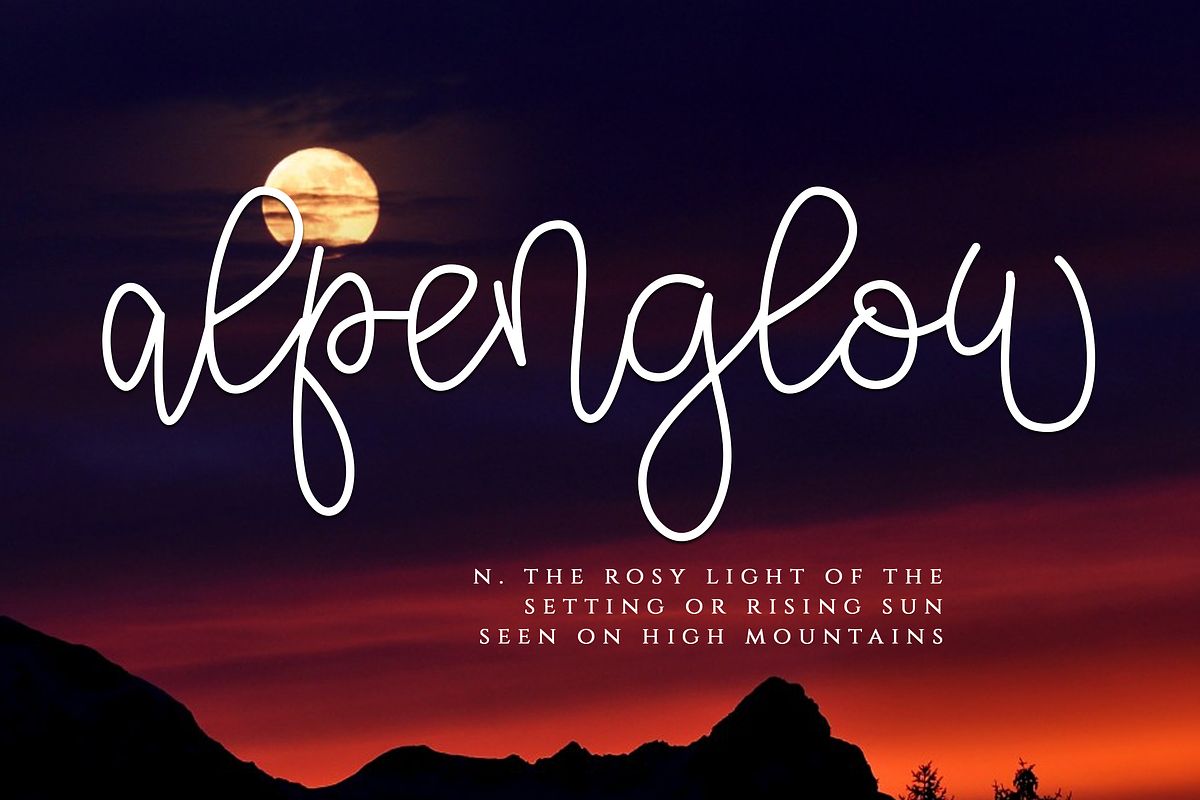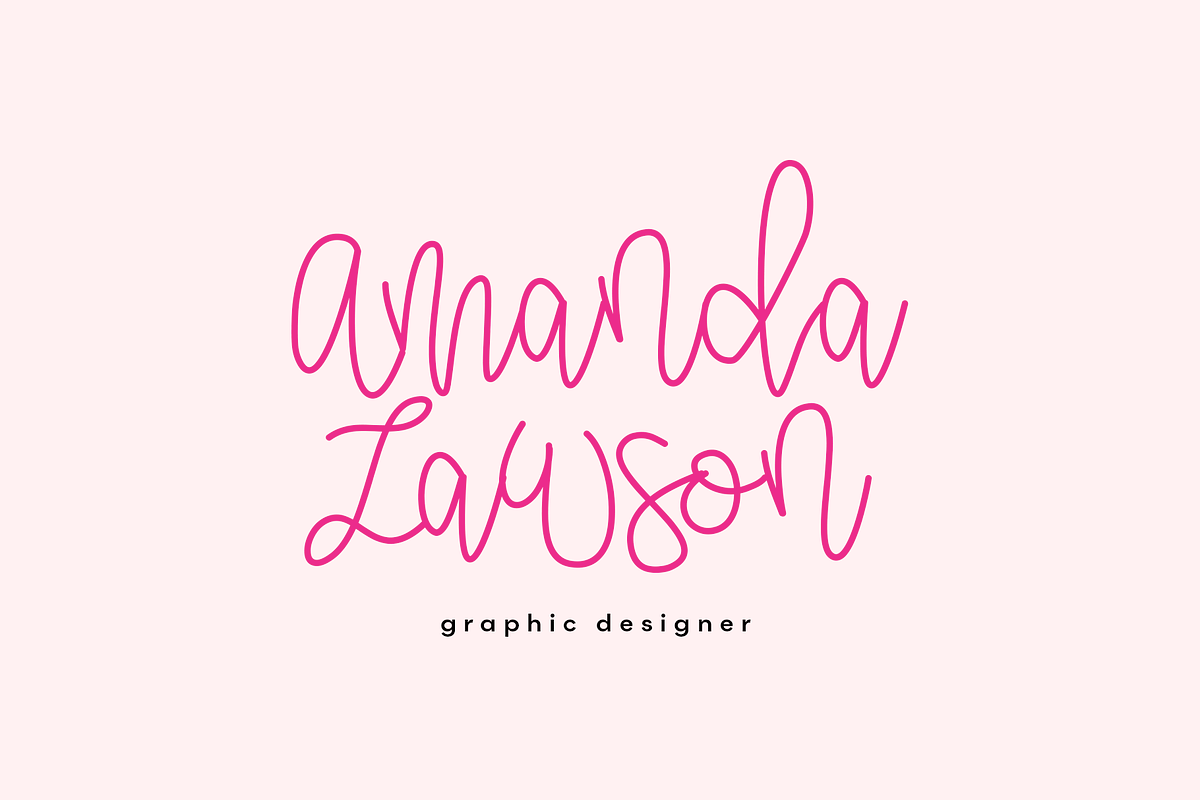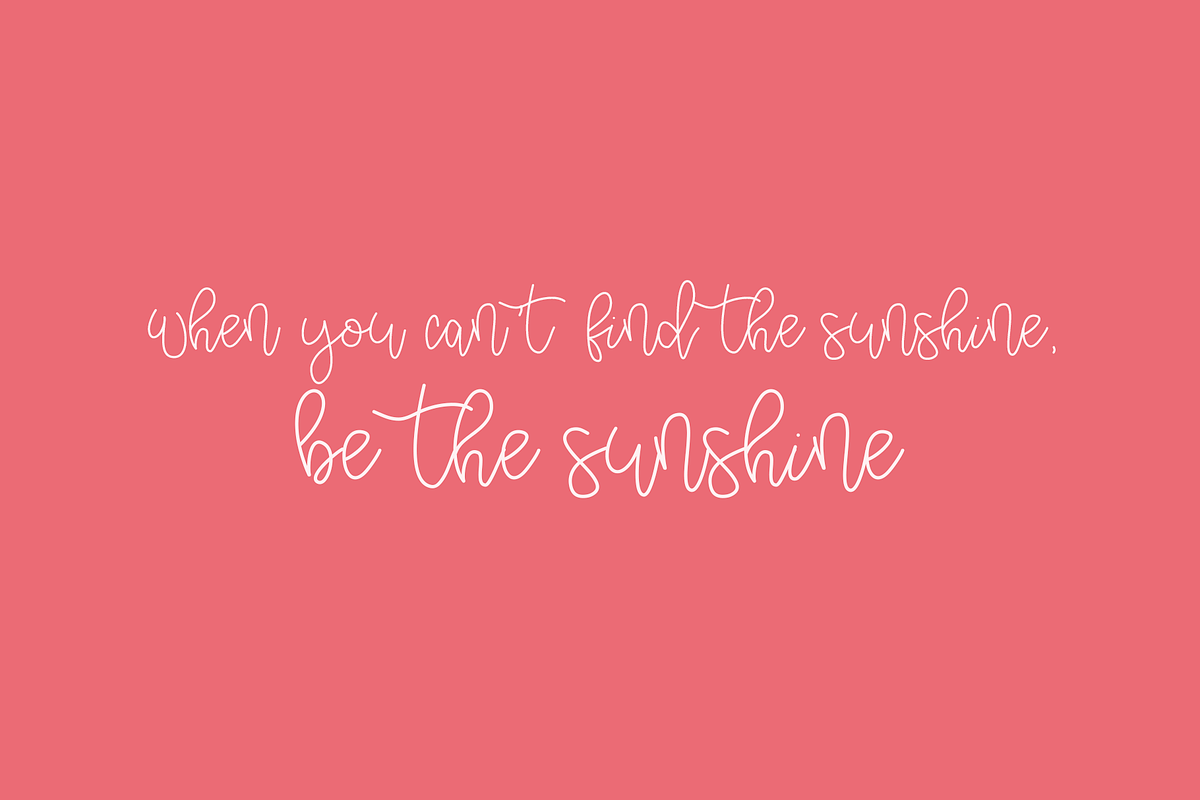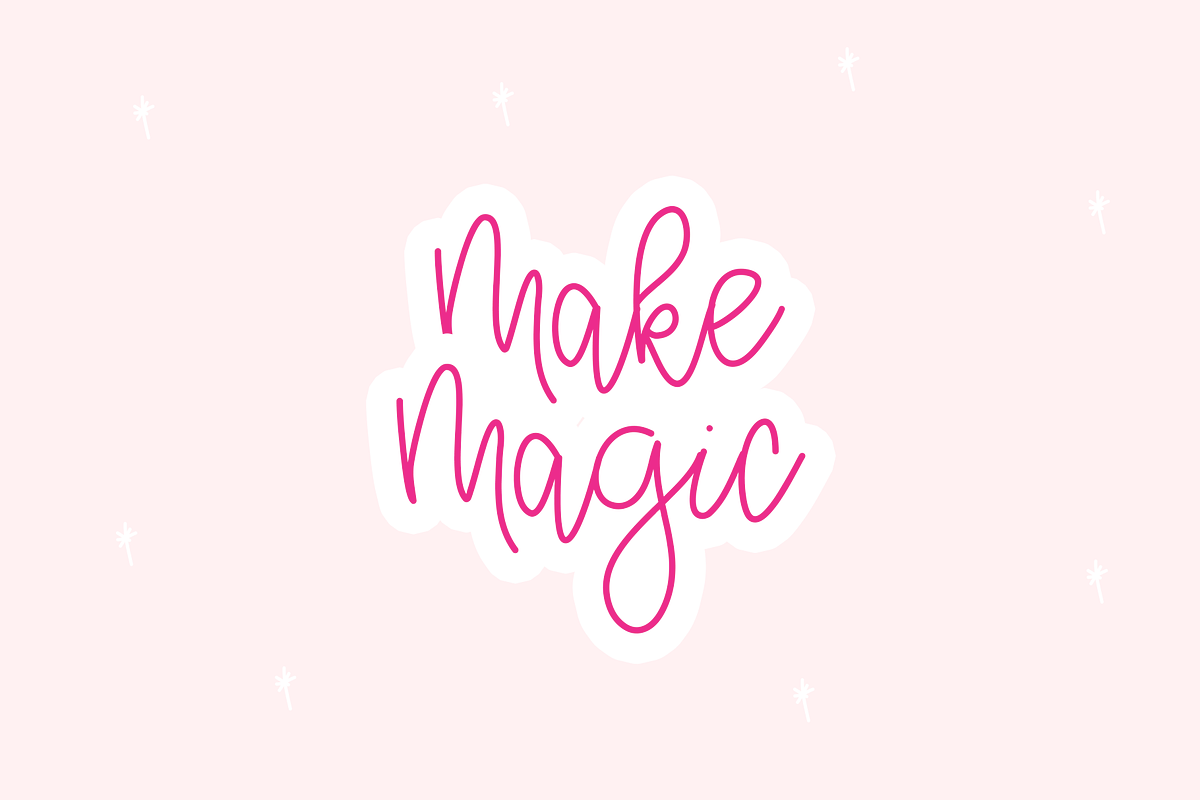
Alpenglow - Bouncy Script Font
Alpenglow is a handwritten, bouncy script font.
This font is perfect for quotes, headings, blogs, logos and invitations.
This font does include accent characters